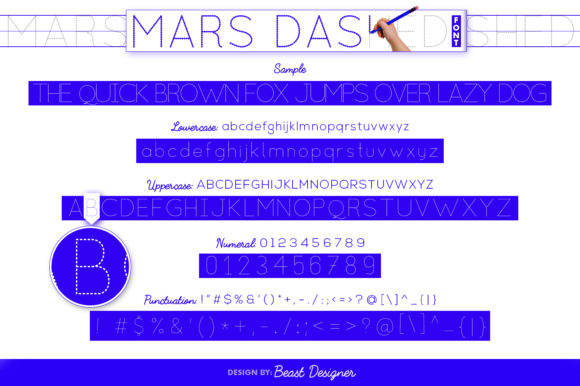
Introduction to Mars Dashed Font
Mars Dashed is an incredibly unique and interesting display font, created from tiny little dashes.
Key Features of Mars Dashed Font